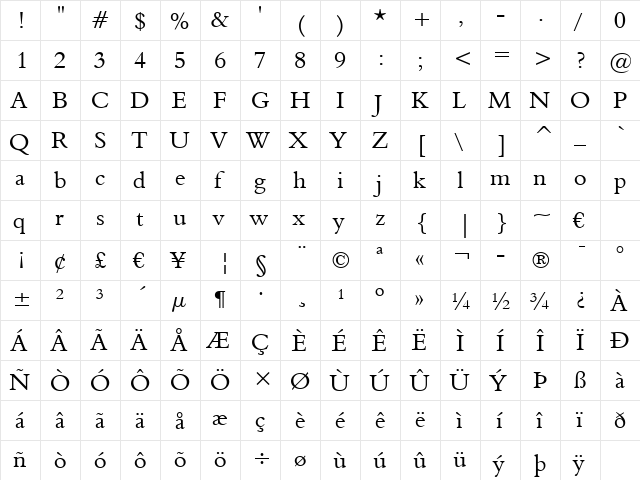
Aldine401 BT Roman
Design Context for Aldine401 BT Typeface
Aldine401 BT offers clean, dependable letterforms without strong stylistic allegiance, making it a practical choice for designers who need flexibility.
Pro Tip: Use Aldine401 BT in both headline and body roles to test its range before committing to a single application.